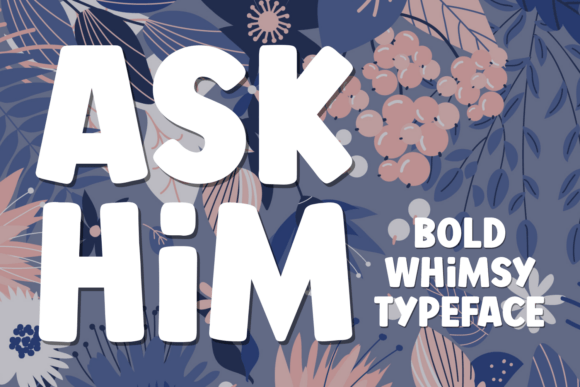
The Joy of Ask Him Font: A Bold and Whimsical Addition to Your Design Toolbox
I’ll never forget the time I was working on a project for a children’s toy brand. I had to create a title for their new product line, and I was struggling to find the right font. The client wanted something bold, playful, and fun, but not too childish. That’s when I stumbled upon Ask Him, a bold and bouncy display font that instantly brought joy to my creative work.
With its soft, rounded terminals and cheerful, irregular rhythm, Ask Him mimics the charm of paper cutouts or bubble lettering. It’s a versatile “fun-first” font, perfect for titles, toy packaging, school posters, and youth-oriented logos. And, as I soon discovered, it looks fantastic on t-shirts, stickers, and greeting cards too!
An Honest Review of Ask Him Font
- ✅ The bold and playful design makes it perfect for grabbing attention
- ✅ Soft, rounded terminals give it a friendly and approachable feel
- ✅ Cheerful, irregular rhythm adds a touch of whimsy and charm
- ✅ Versatile and fun-first design makes it suitable for a wide range of projects
- ⚠️ May not be suitable for body text or small font sizes due to its bold design
- ⚠️ Limited use of OpenType features, but more on that later
Ask Him font features a range of OpenType features and glyphs that can add more variety and interest to your designs. These include:
- Stylistic alternates: These offer alternative letterforms that can be used to create a more unique look
- Glyphs: These are special characters that can be used to add decorative elements to your design
The Backstory of Ask Him Font
Ask Him font was designed with one goal in mind: to create a bold and playful typeface that would bring joy to creative work. The designer, inspired by the charm of paper cutouts and bubble lettering, set out to create a font that would be perfect for titles, posters, and logos. With its soft, rounded terminals and cheerful, irregular rhythm, Ask Him is the result of that vision.
Q: What is Ask Him font best used for?
A: Ask Him font is best used for titles, posters, logos, and other design projects where a bold and playful look is desired.
Q: Is Ask Him font available in different weights or styles?
A: Currently, Ask Him font is available in a single weight and style. However, the designer may release additional variations in the future.